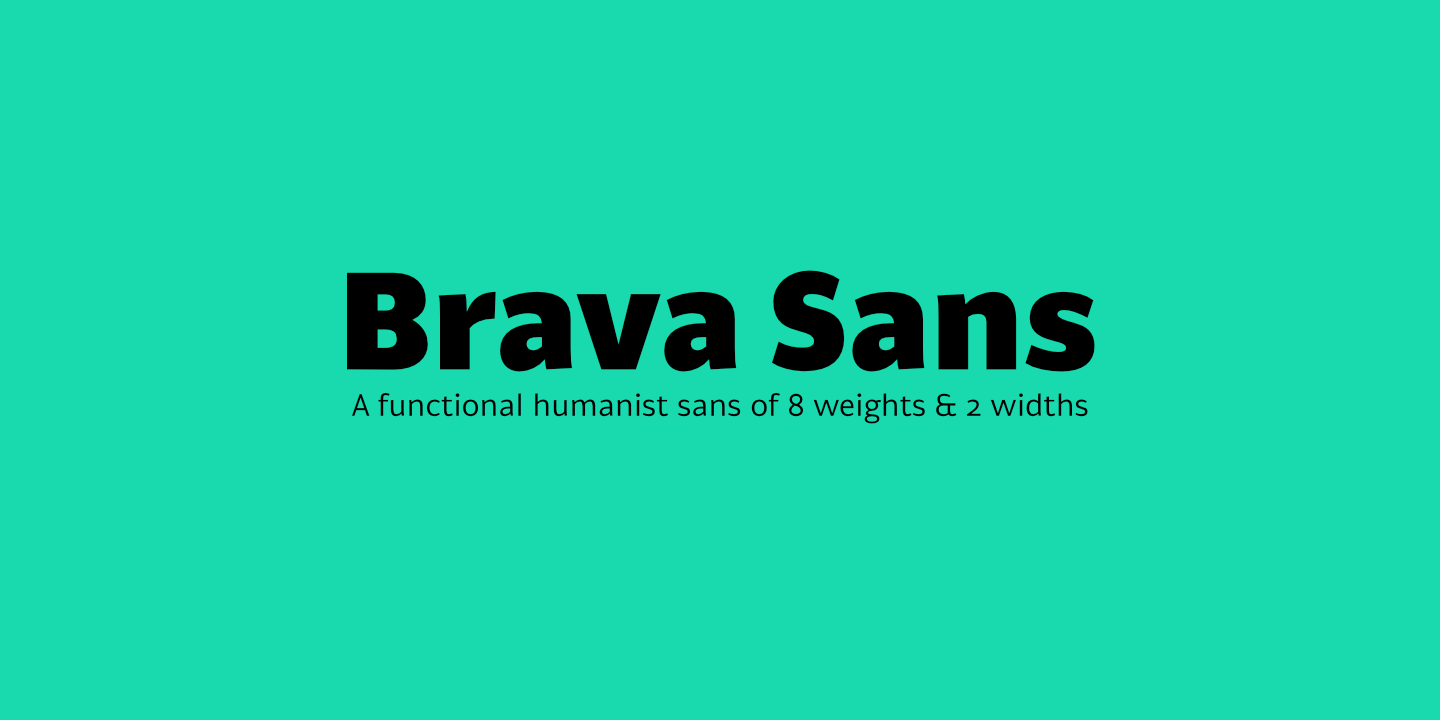
Brava Sans Font excels in numerous design applications including modern branding, corporate headlines, digital advertising, fashion magazines, tech company logos, architectural signage, product packaging, contemporary posters, website headers, and dynamic marketing campaigns. Its bold character makes it perfect for brands seeking to make strong visual statements and establish commanding presence.
What makes Brava Sans Font so exciting is its perfect balance between confident boldness and refined elegance, featuring strong letterforms, optimized spacing, and contemporary styling that creates immediate impact while maintaining excellent readability across all applications. The font's assertive aesthetic conveys strength and modernity, making it ideal for brands seeking to establish leadership and progressive positioning.
The Brava Sans Font family includes comprehensive weight variations: Thin, Light, Regular, Medium, Bold, Black, and their corresponding italic versions, plus condensed and extended options. Each family member maintains consistent confident relationships while offering different levels of emphasis, providing designers with extensive typographic flexibility for dynamic brand communications.
This exceptional typeface represents the perfect synthesis of contemporary design confidence and functional typography, making Brava Sans Font Free Download an invaluable resource for modern designers. The font's bold characteristics work exceptionally well in competitive markets where brand distinction, confidence, and visual impact are fundamental considerations.
Professional designers choose Brava Sans Font for its ability to create memorable brand identities and confident visual communications. The font's assertive nature makes it particularly effective for technology companies, fashion brands, consulting firms, and innovative startups where confidence and modern appeal are essential considerations.
The font's contemporary confidence and versatile sophistication make it particularly suitable for design agencies, tech corporations, fashion houses, modern architecture firms, and progressive organizations. Its bold appeal ensures designs remain impactful and memorable across changing contemporary design trends.